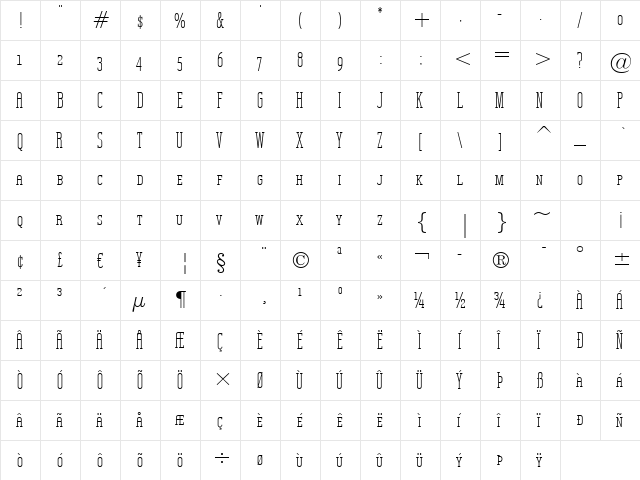
Unknown Caller BTN SC Regular
Design Context for Unknown Caller BTN SC Typeface
Unknown Caller BTN SC offers clean, dependable letterforms without strong stylistic allegiance, making it a practical choice for designers who need flexibility.